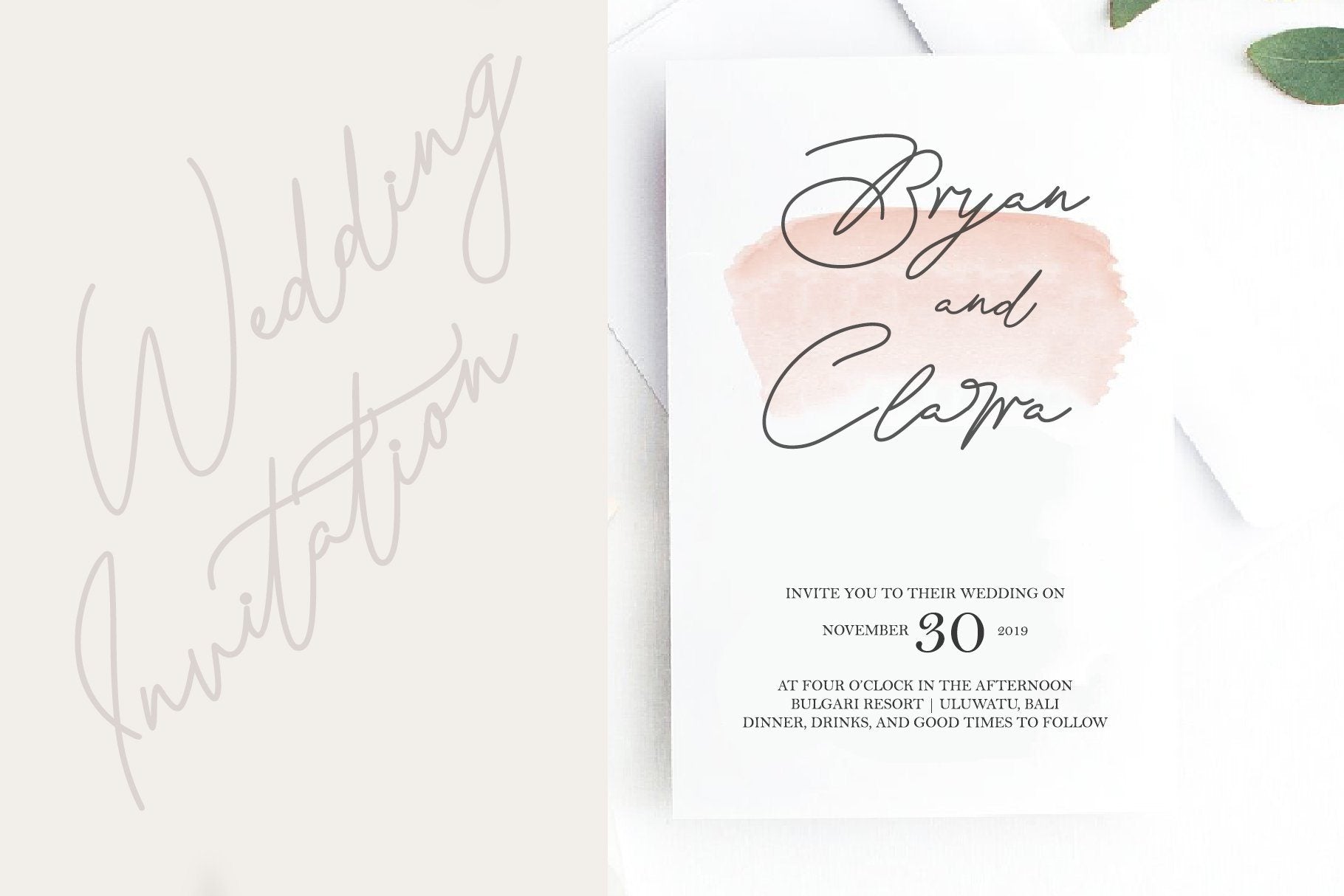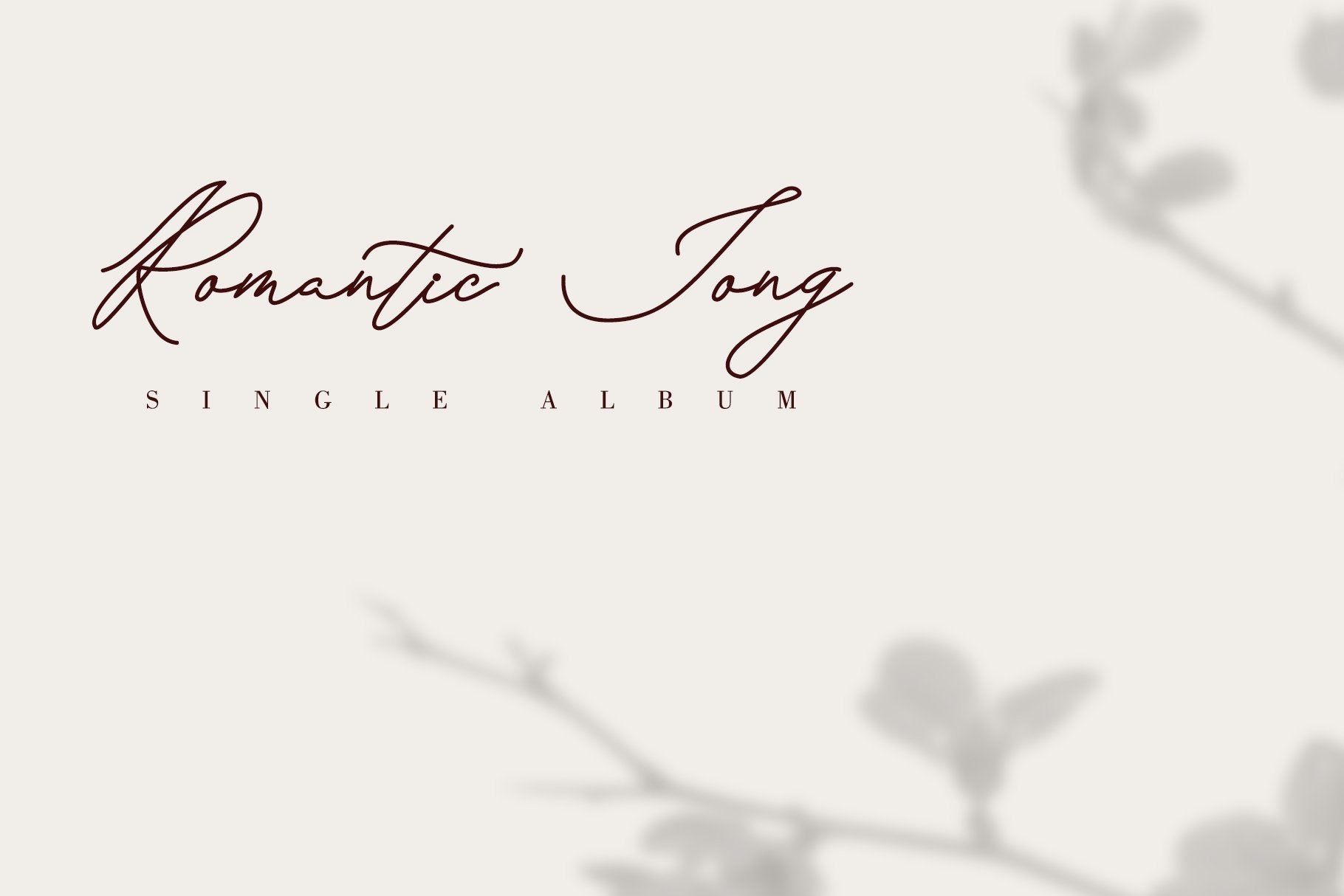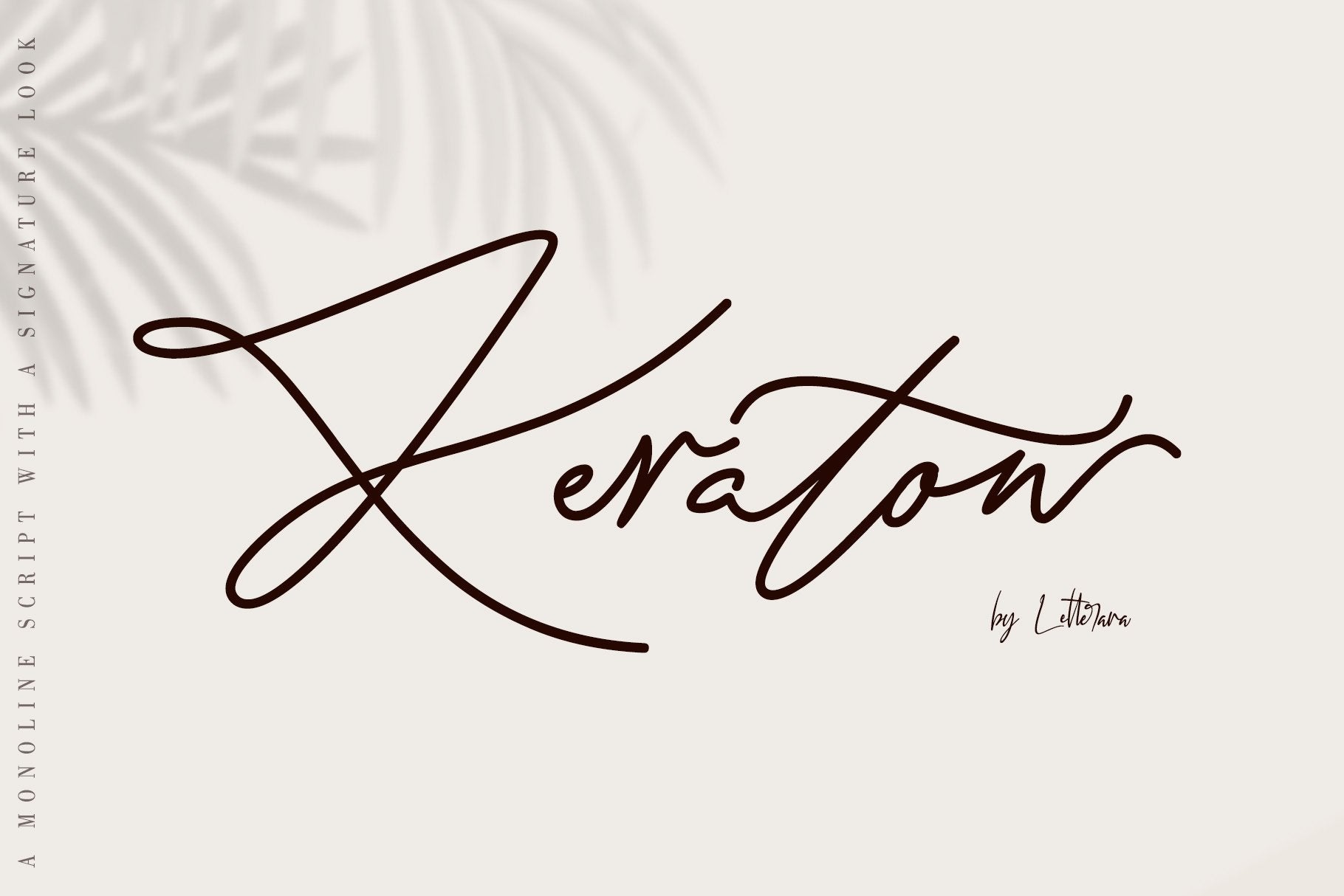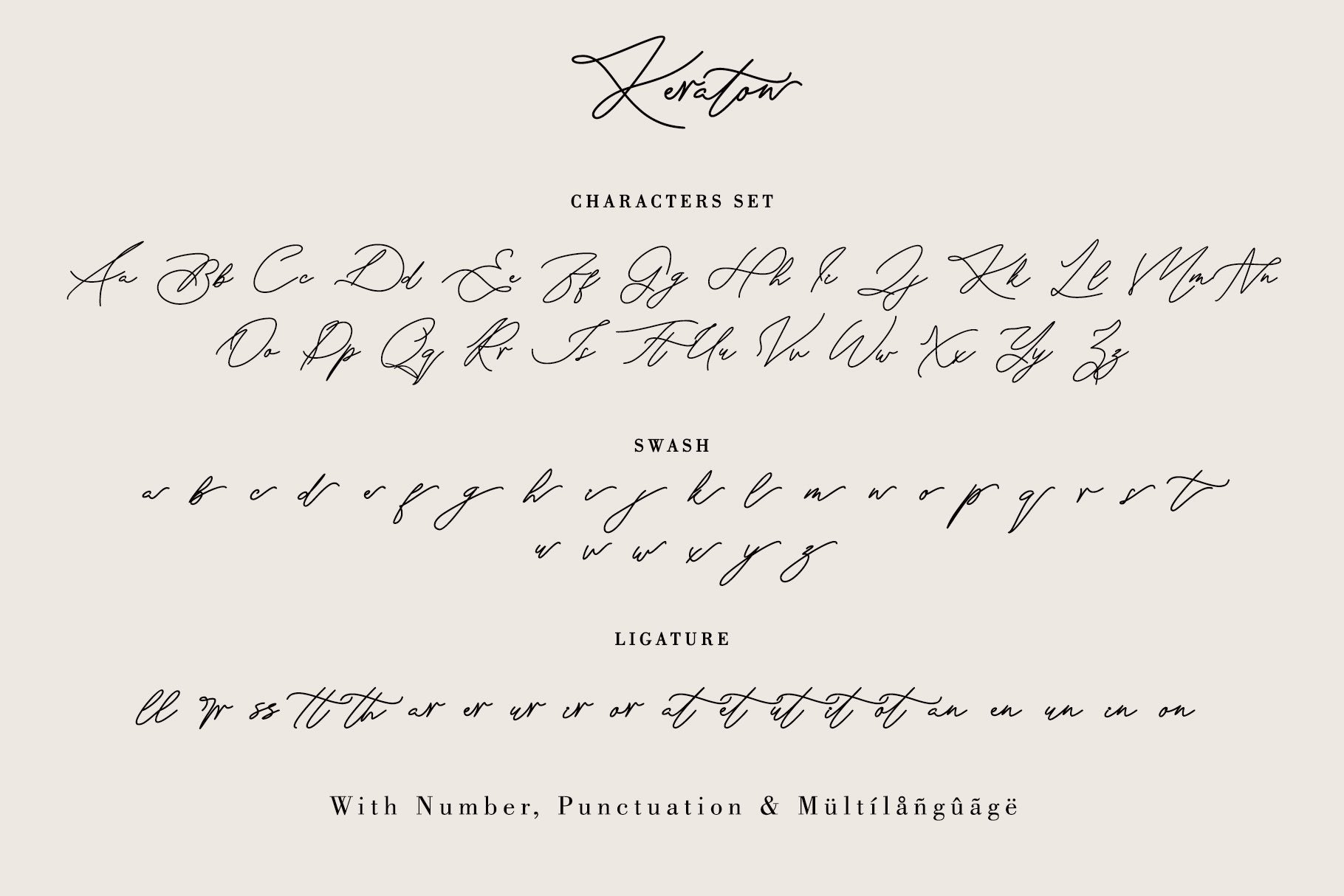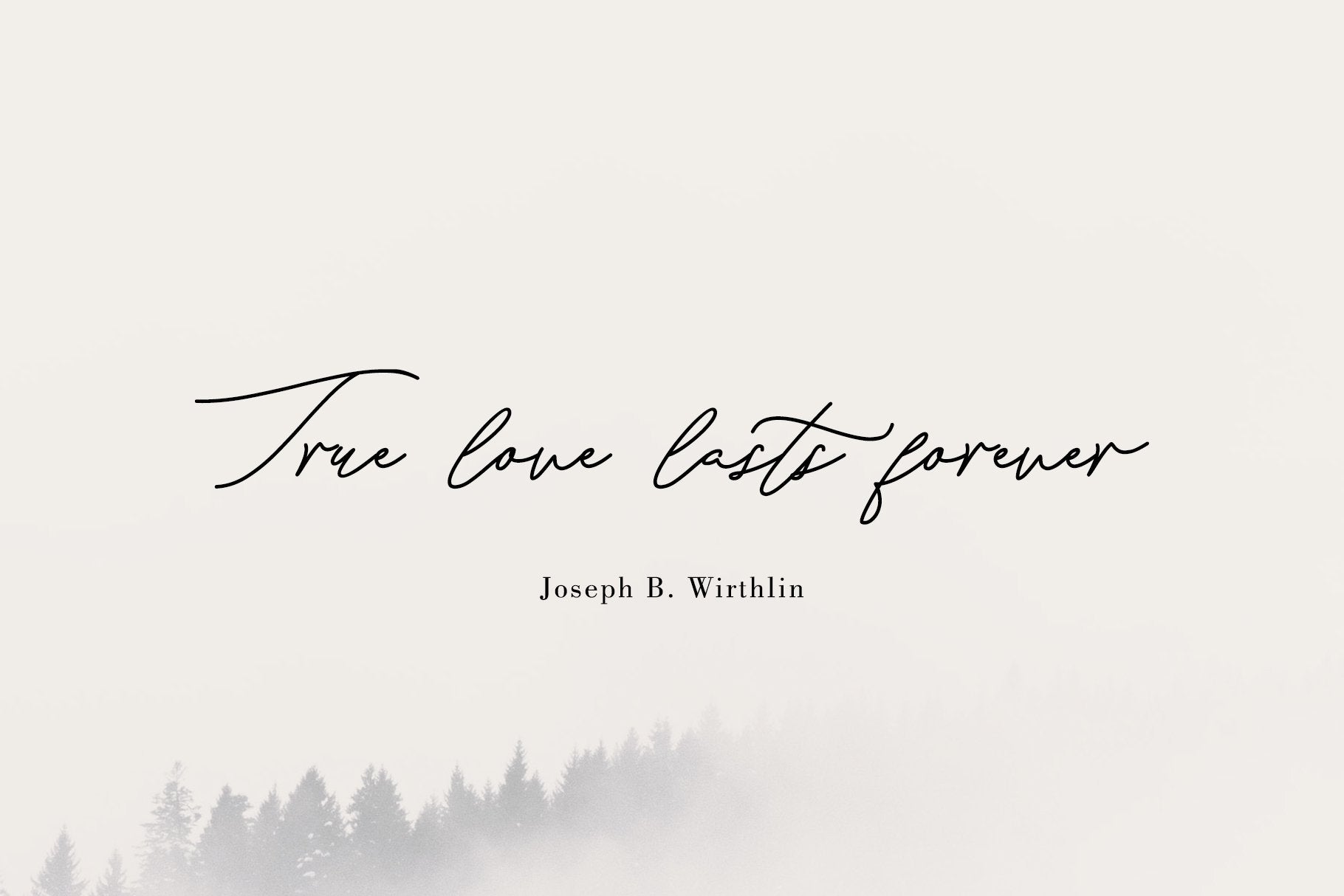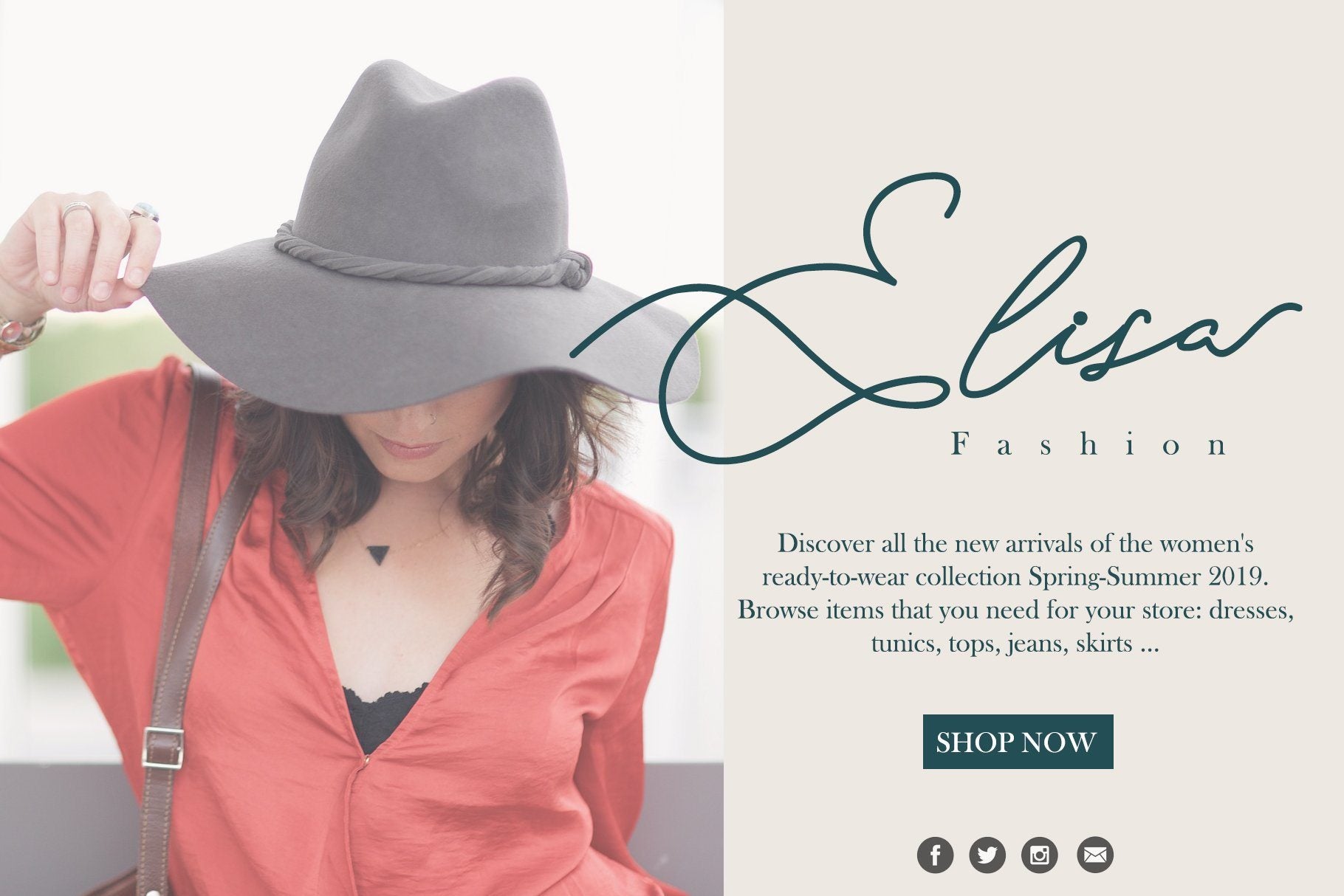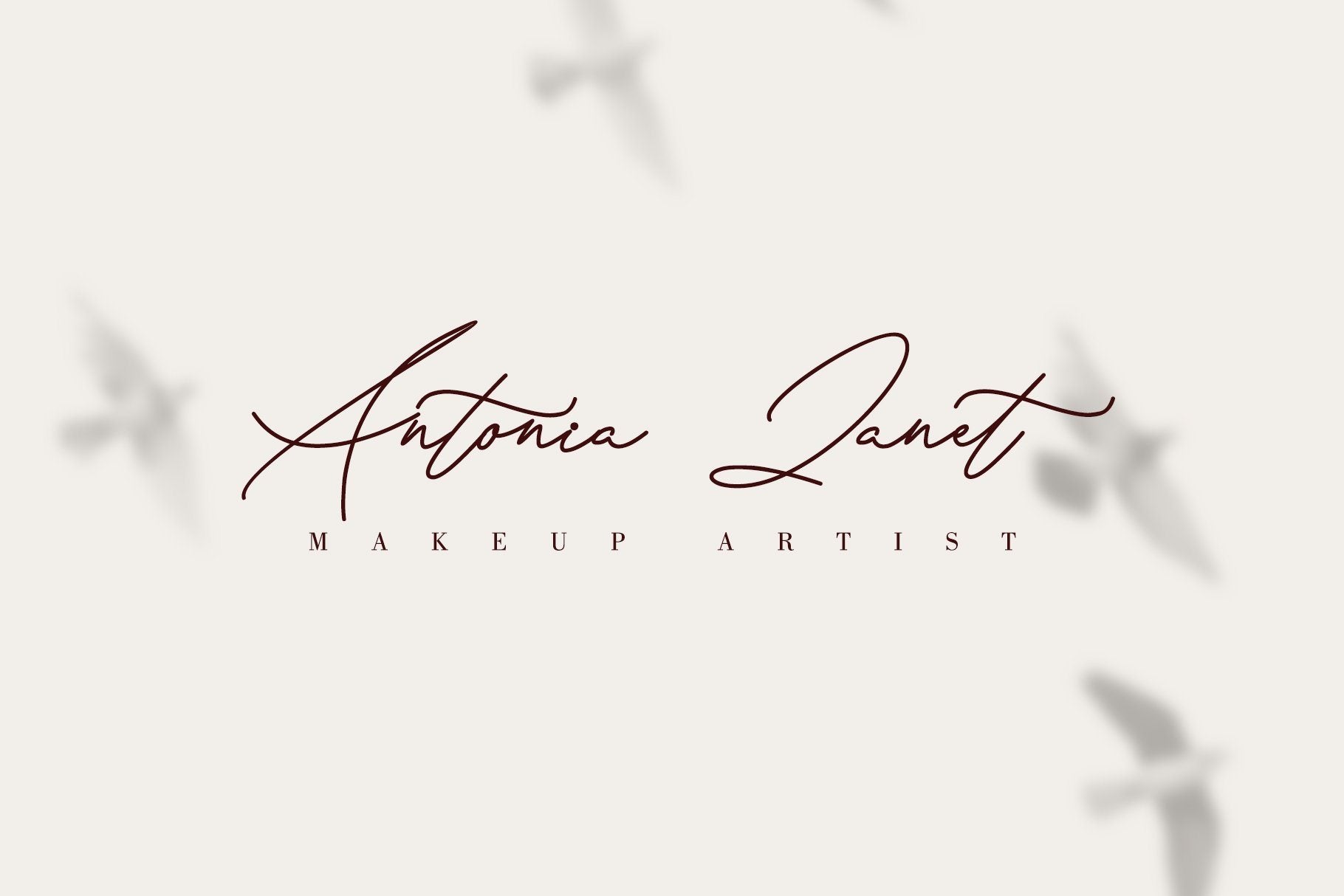
Keraton
About Keraton
Keraton is a monoline script with a signature look. It will take any design project to the next level. Thanks for checking out my store, and feel free to get in touch if you have any questions!  Features : Upper Case & Lowercase Numerals Punctuations (OpenType Standard) Accents (Multilingual characters) Ligatures, Swash Works on PC & Mac Simple installations Accessible in the Adobe Illustrator, Adobe Photoshop, Adobe InDesign, even works on Microsoft Word. don’t wait anymore, put it in your shopping basket 🙂 and follow me, because there will be many promos! Our other products : BEST SELLER JENNIE BLACK PINK SIGNATURE ANDORA BRIGITTA HEANFFE EIFFEL IN LOVE ( FONT TRIO) BLACK PINK SUMMER HONG KONG ANGEL MALEFICENT California Street BESTOWENS FAMILY